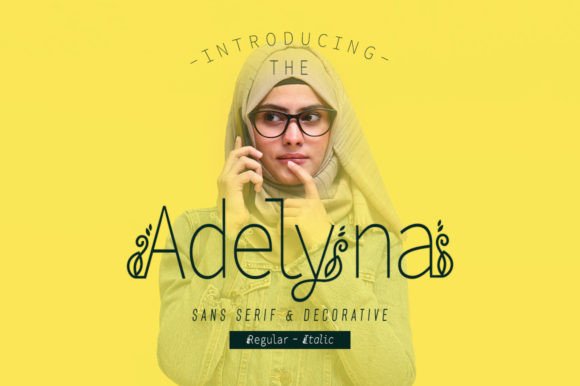
Introducing Adelyna Font: Elevate Your Designs with Elegance and Sophistication
In the world of typography, fonts play a crucial role in making or breaking a design. A well-chosen font can elevate your creative project from ordinary to extraordinary. If you’re a designer, crafter, or simply someone who appreciates beautiful typography, you’re in luck! Meet Adelyna Font, a stunning sans serif font that combines the best of both worlds: a professional look with a stylish mix of decorative elements.
The Unique Charm of Adelyna Font
Adelyna Font is described by its intricate swirls, which set it apart from your average sans serif fonts. At first glance, it may seem like a straightforward, modern font. However, upon closer inspection, you’ll discover the beautiful decorative elements that make Adelyna truly special. These intricate swirls add a touch of elegance and sophistication to any design, making it perfect for projects that require a bit of flair.
Perfect Blend of Professionalism and Style
One of the standout features of Adelyna Font is its ability to blend perfectly the professional look of a sans serif font with a stylish mix of decorative elements. This makes it an incredibly versatile font that can be used in a wide range of design projects, from corporate branding to creative crafts. Whether you’re designing a logo, brochure, or social media graphics, Adelyna Font is sure to make your project stand out.
Use Adelyna Font in Your Creative Projects
Why Choose Adelyna Font?
- Elegant and Sophisticated: Adelyna Font adds a touch of elegance and sophistication to any design.